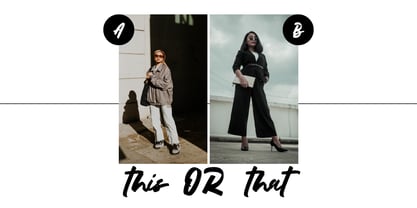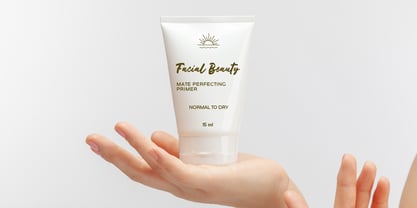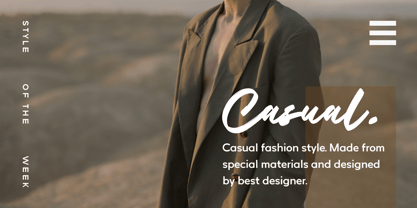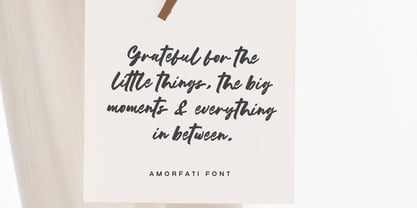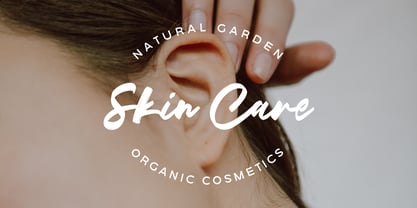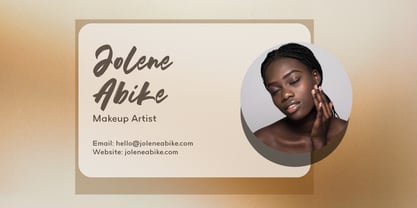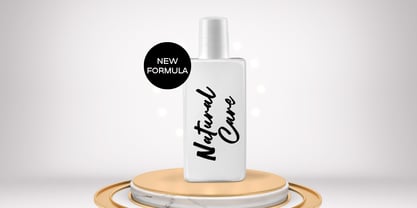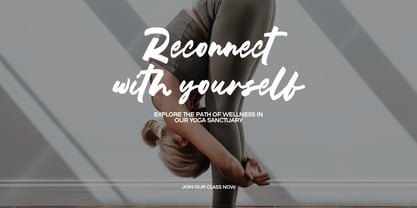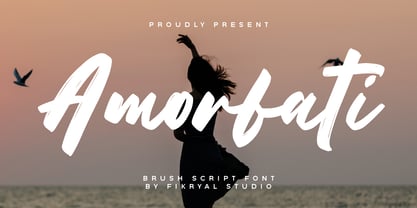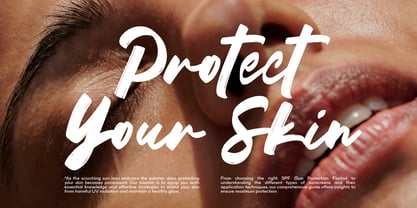
Amorfati
by Fikryal
The Amorfati Font Family was designed by Muhammad Fikry and published by Fikryal. Amorfati contains 1 styles. More about this family
Introducing Amorfati, a bold and expressive Brush Script Font that captures the spirit of freedom, motion, and hand-crafted artistry. Inspired by natural brush strokes and fluid calligraphy, Amorfati offers an energetic and charismatic feel that brings a personal touch to any design.
This typeface is perfect for a wide range of creative projects—branding, logos, product packaging, social media posts, posters, invitations, and handwritten quotes. Each letter is carefully designed to maintain a natural rhythm and dynamic flow, making your typography feel alive and emotionally engaging.
Amorfati includes:
• Uppercase & Lowercase Letters
• Numbers & Punctuation
• Multilingual Support
Let Amorfati speak your message with personality and brush-crafted passion.